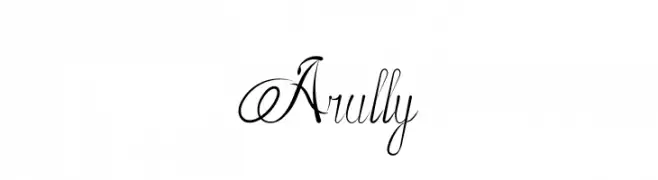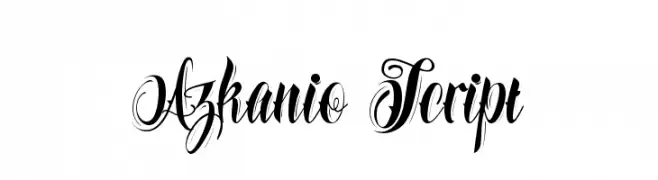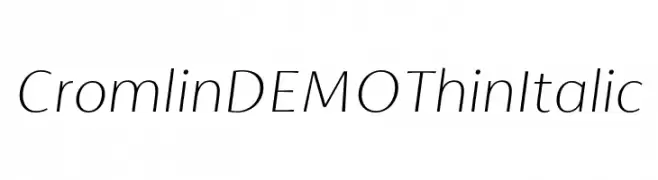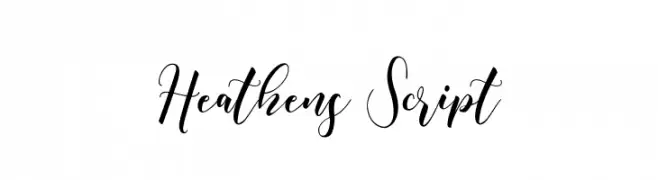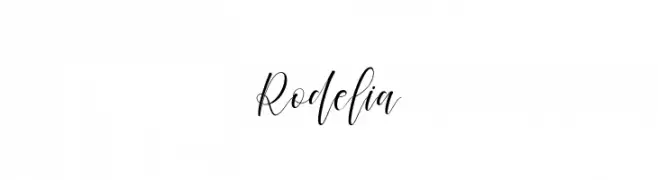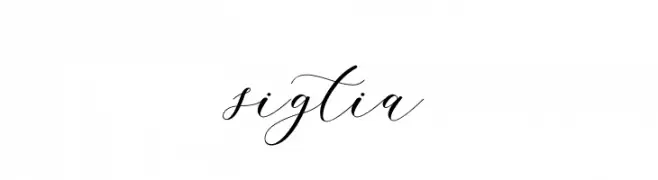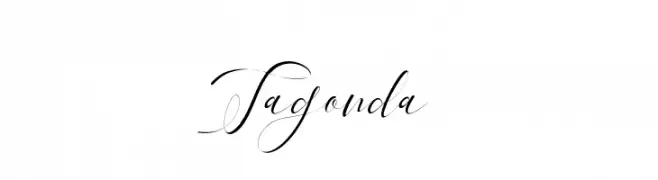
An elegant script font with flowing, cursive letterforms and a sophisticated style.
An elegant script font with intricate swashes and flowing, interconnected letters.
A decorative script font with elegant swirls and flourishes.
A sleek, modern thin italic font with elegant strokes and a refined appearance.
An elegant and flowing script font with ornate uppercase and readable lowercase letters.
An elegant script font with flowing lines and intricate swashes.
A graceful and sophisticated script font with flowing, interconnected letters.
An elegant script font with flowing, cursive characters and intricate flourishes.
A sophisticated script font with elegant loops and high contrast strokes.
An elegant script font with flowing, interconnected letters and intricate swashes.